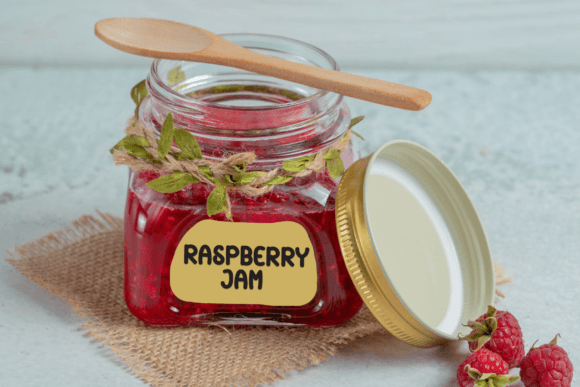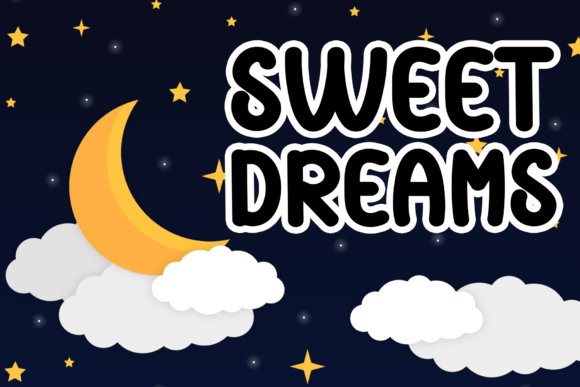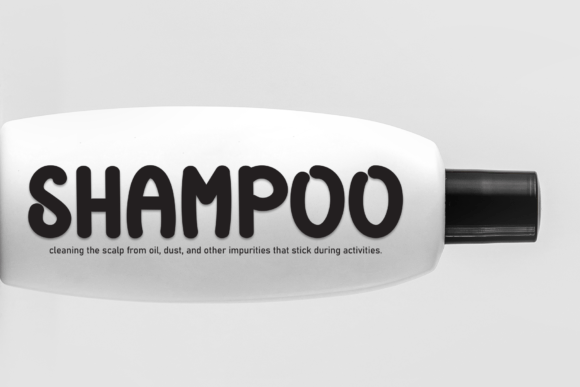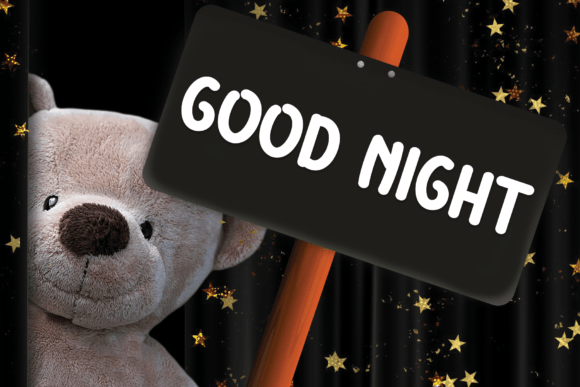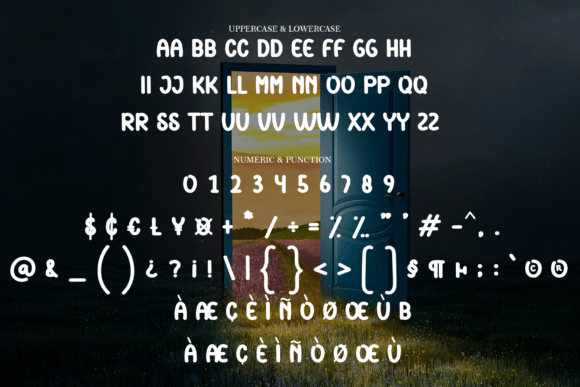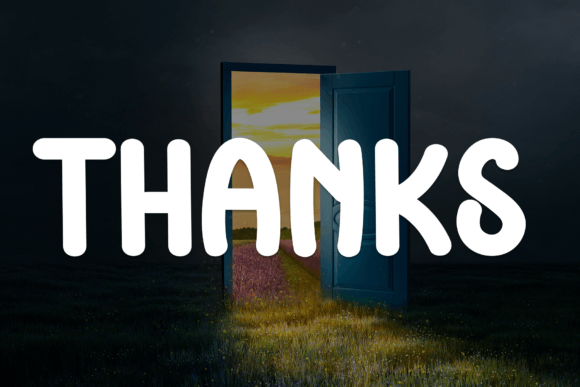
The Sweet Spot: Discovering Door Price Font
I’ll never forget the time I was working on a wedding invitation project, and my client asked for a font that was “sweet, friendly, and playful.” I scoured the internet, tried out dozens of fonts, but nothing seemed to fit the bill. That was until I stumbled upon Door Price Font. This beautiful handwritten font has been a game-changer for me, and I’m excited to share it with you.
A Personal Review: What I Love About Door Price Font
Door Price Font is a fresh and cute handwritten font that’s perfect for adding a fun touch to your designs. Here are some things I love about it:
- ✨ Sweet and friendly vibe that’s perfect for wedding invitations, cards, and other celebrations
- 💕 Beautifully crafted with a personal touch
- 🎉 Supports OpenType features, glyphs, and stylistic alternates
While Door Price Font is an amazing font, there are a few things to keep in mind:
- 🤔 Some users may find the font a bit too casual for formal designs
- ⚠️ Limited language support, so make sure to check the character set before using
The Story Behind Door Price Font
Door Price Font was designed with love and care by a talented font designer. The story goes that the designer wanted to create a font that captured the essence of a handwritten note, with all its imperfections and quirks. And so, Door Price Font was born.
- Q: What type of designs is Door Price Font best suited for?
- A: Door Price Font is perfect for wedding invitations, cards, and other celebrations that require a sweet and friendly vibe.
- Q: Is Door Price Font suitable for body text?
- A: While Door Price Font is highly legible, it’s best suited for headings and titles. For body text, you may want to choose a more traditional font.